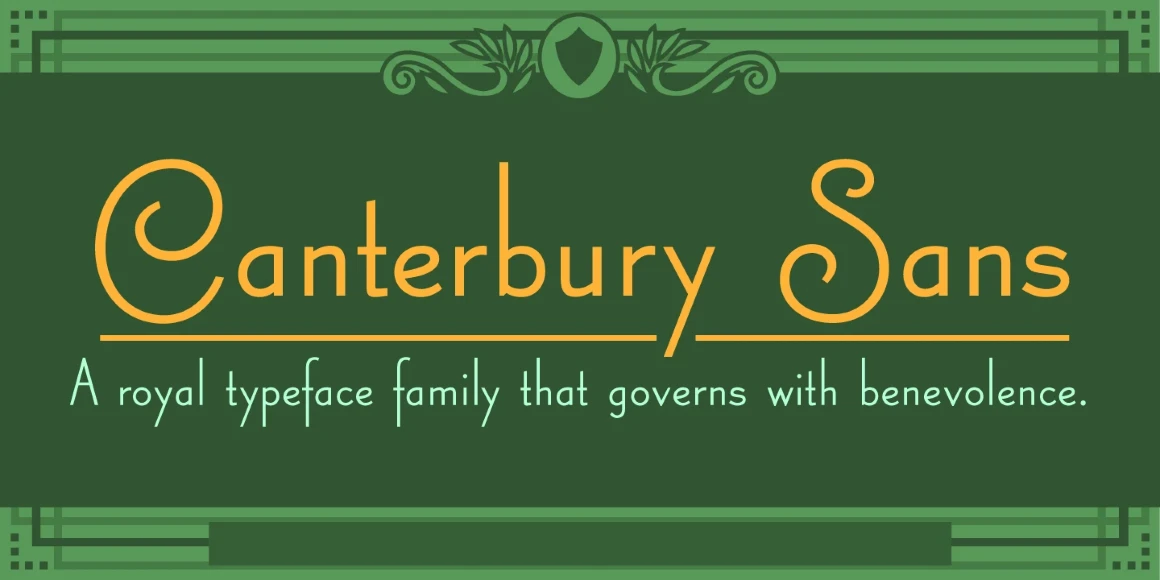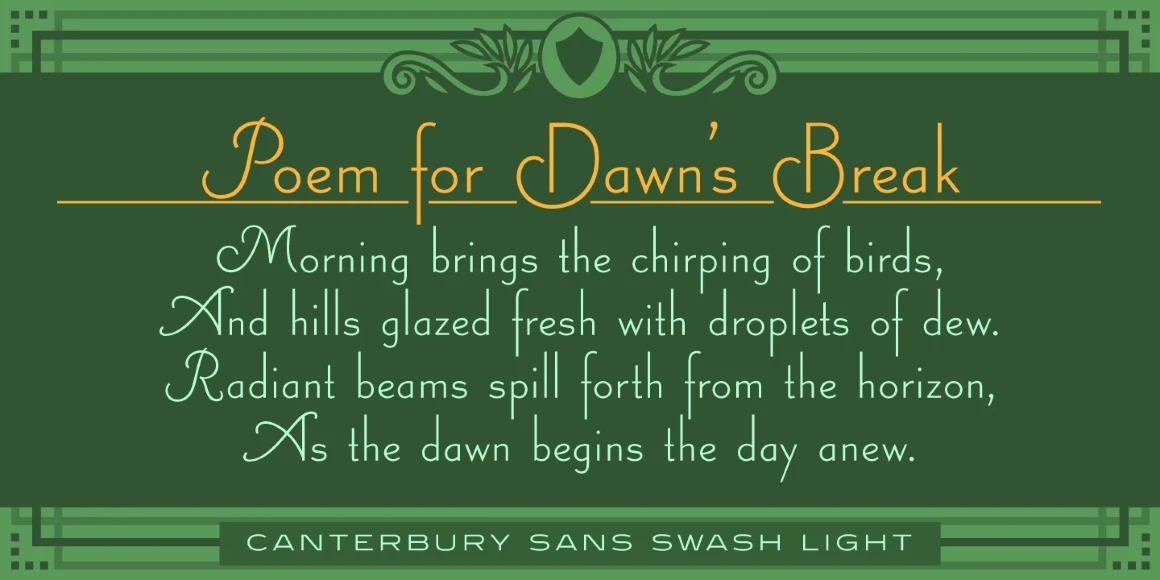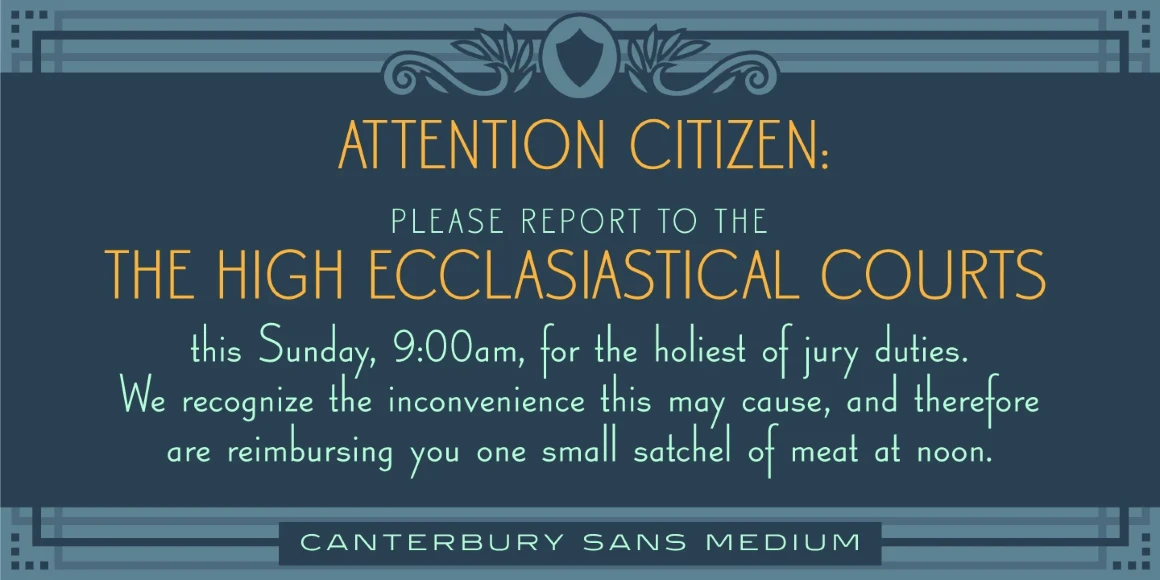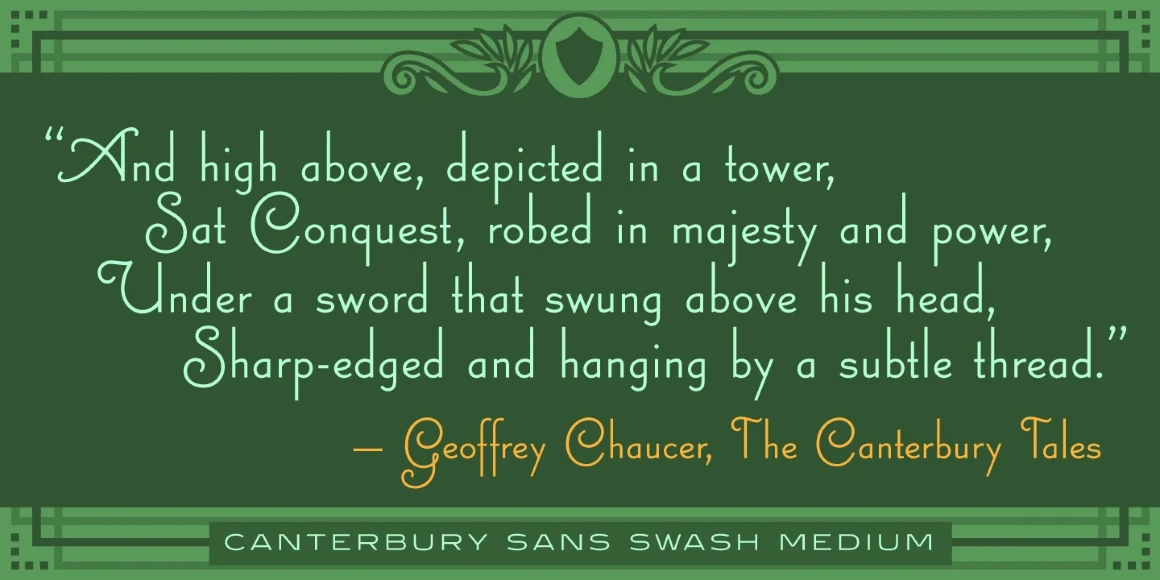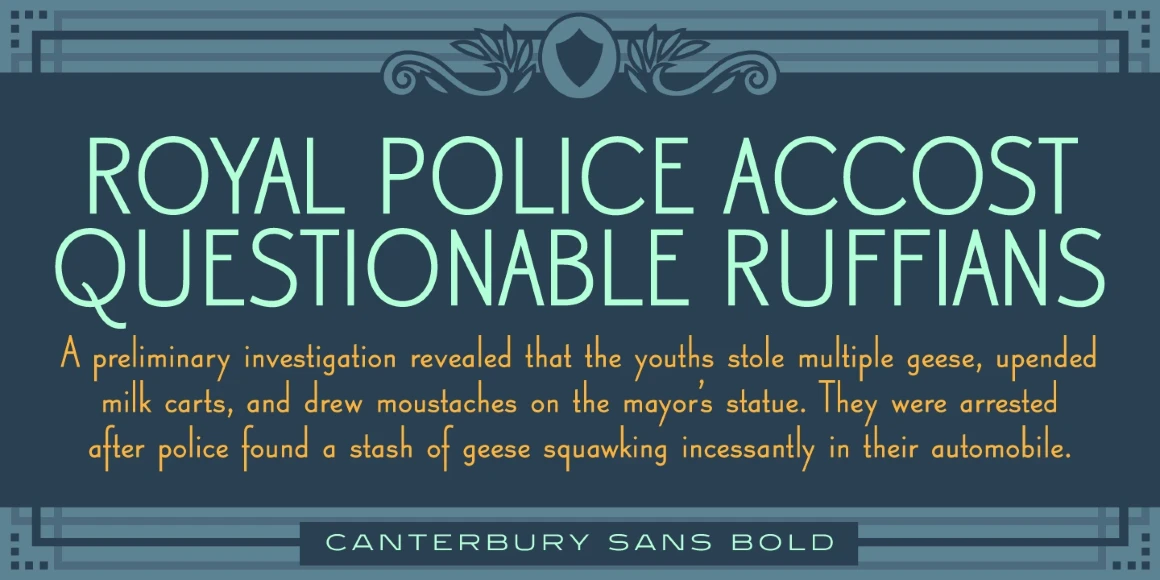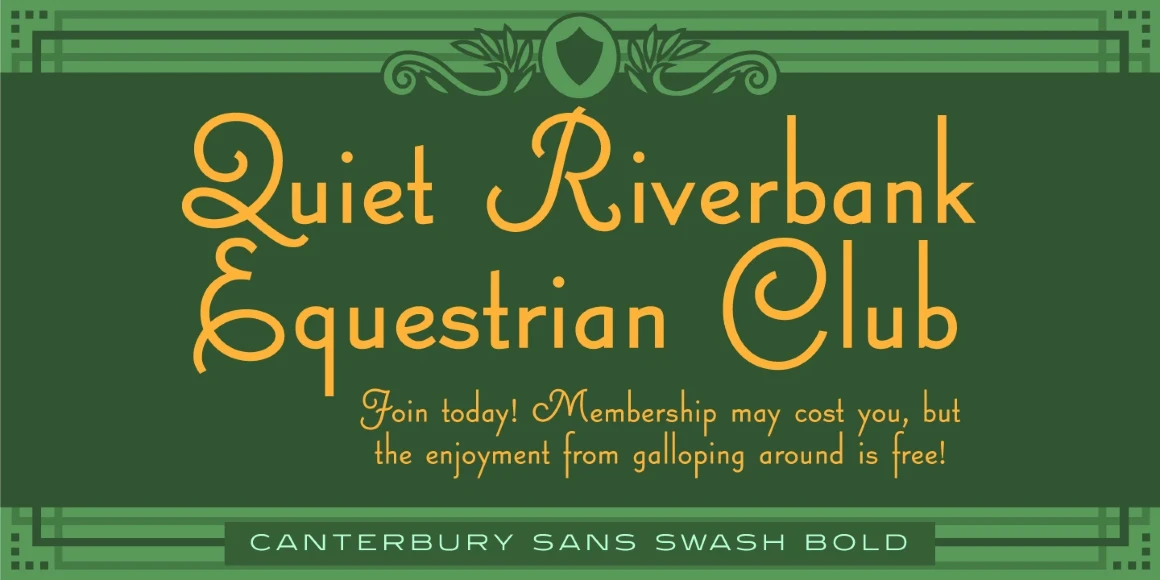
Canterbury Sans
Canterbury Sans is a six-weight sans serif font family with a small x-height. It was designed and produced in 2004 by Steve Jackaman (ITF), and was inspired by the commercial success of the Canterbury Old Style family, which debuted in 1992. Canterbury Sans has a whimsical, old-time feel, and handsomely distinguishes itself at all sizes. Canterbury Old Style, its serif sister font, complements the family with its flowing forms.